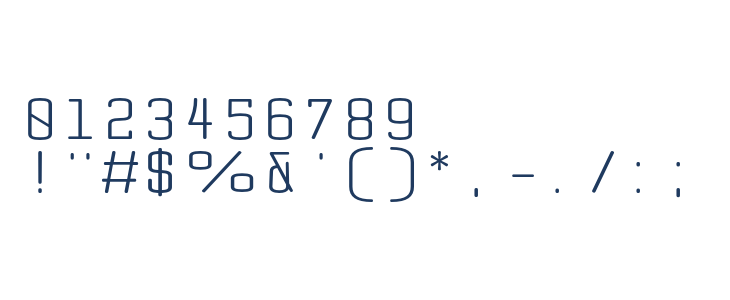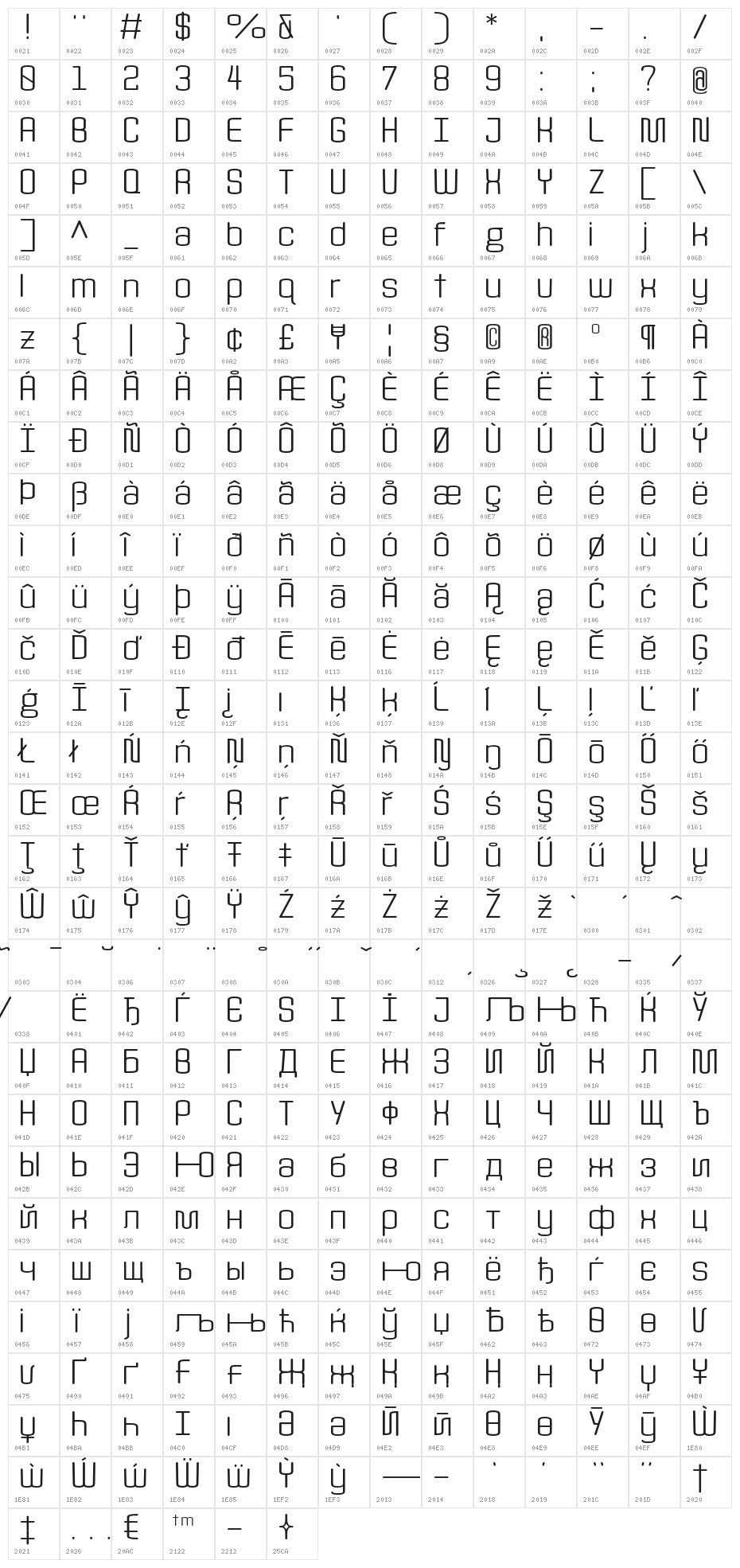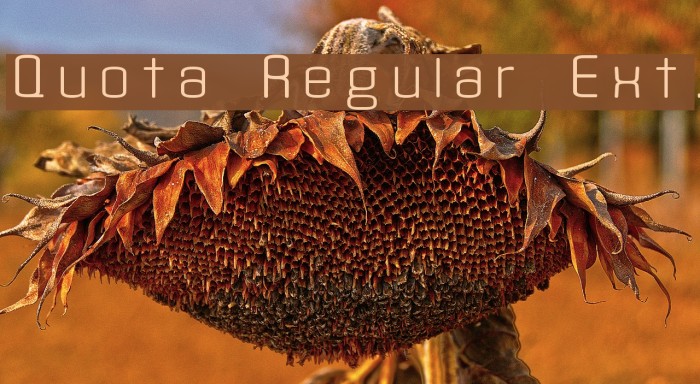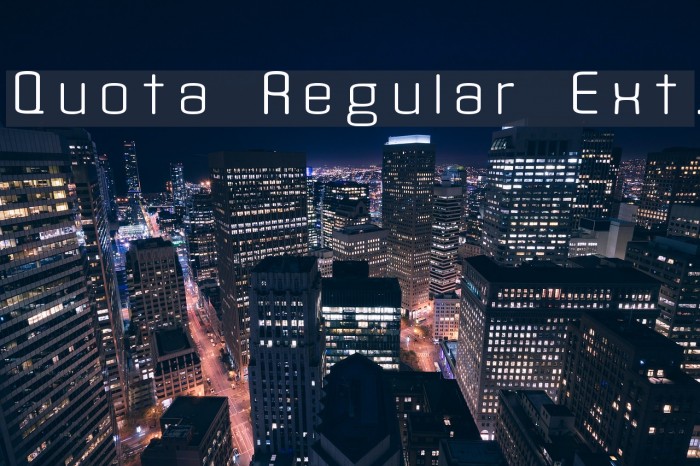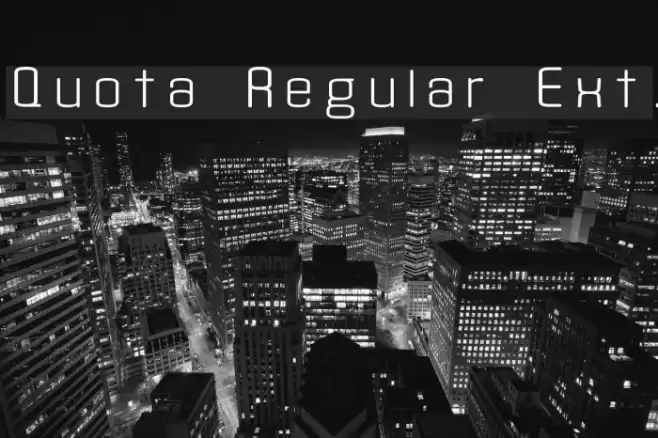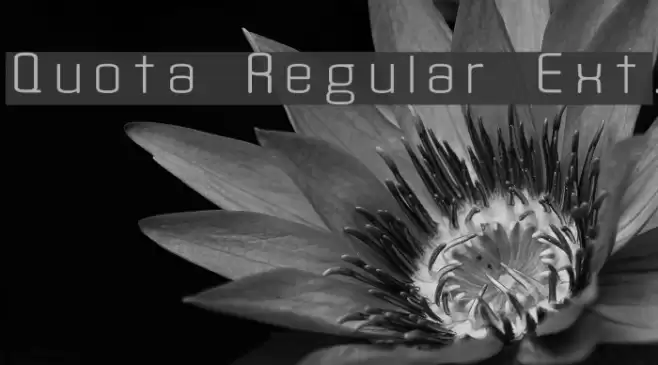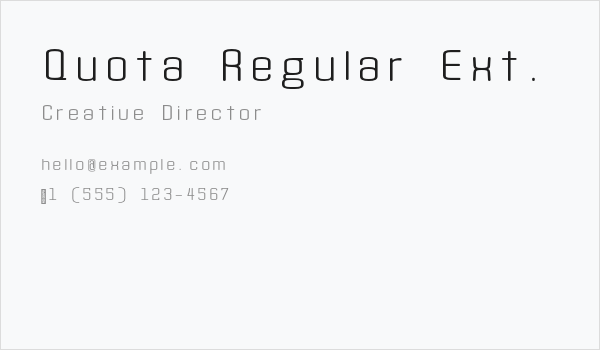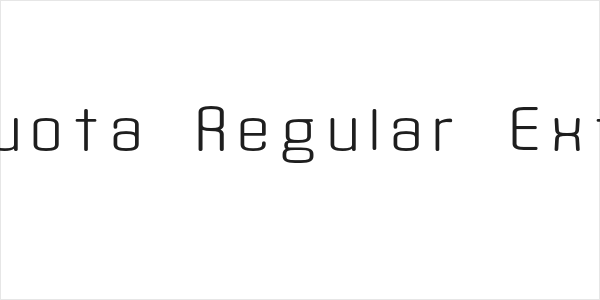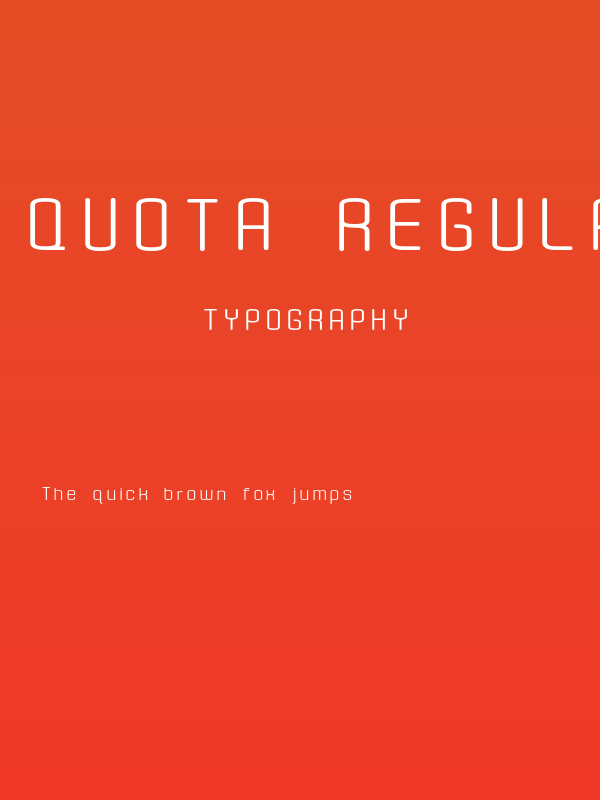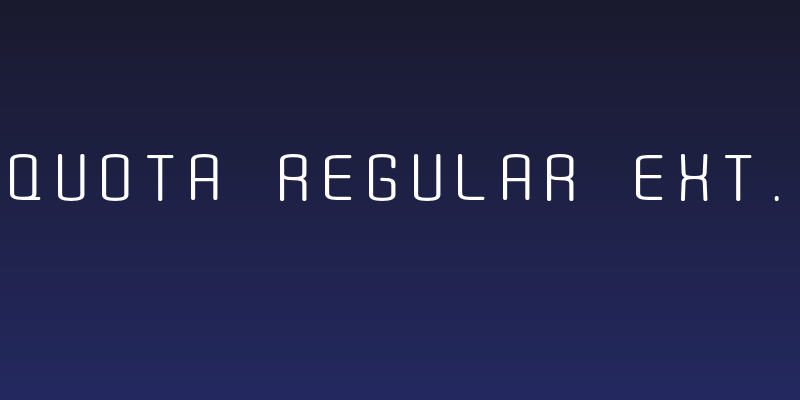
Quota Regular Ext. Font
Quota Regular Ext. Description
This font features a clean and modern design with a geometric structure. The characters are evenly spaced with a consistent stroke width, giving it a monospaced appearance. The uppercase letters are tall and narrow, while the lowercase letters maintain a similar width, creating a uniform look. The numerals are distinct and easy to read, making them suitable for technical or digital applications. Special characters are clearly defined, adding to the font's versatility. Overall, the design is minimalistic and functional, ideal for projects that require clarity and precision.
| Use Case | Coding, Technical documentation, Digital interfaces |
| Proposed Projects | Ideal for coding environments, technical documentation, digital interfaces, and minimalist graphic design projects. |